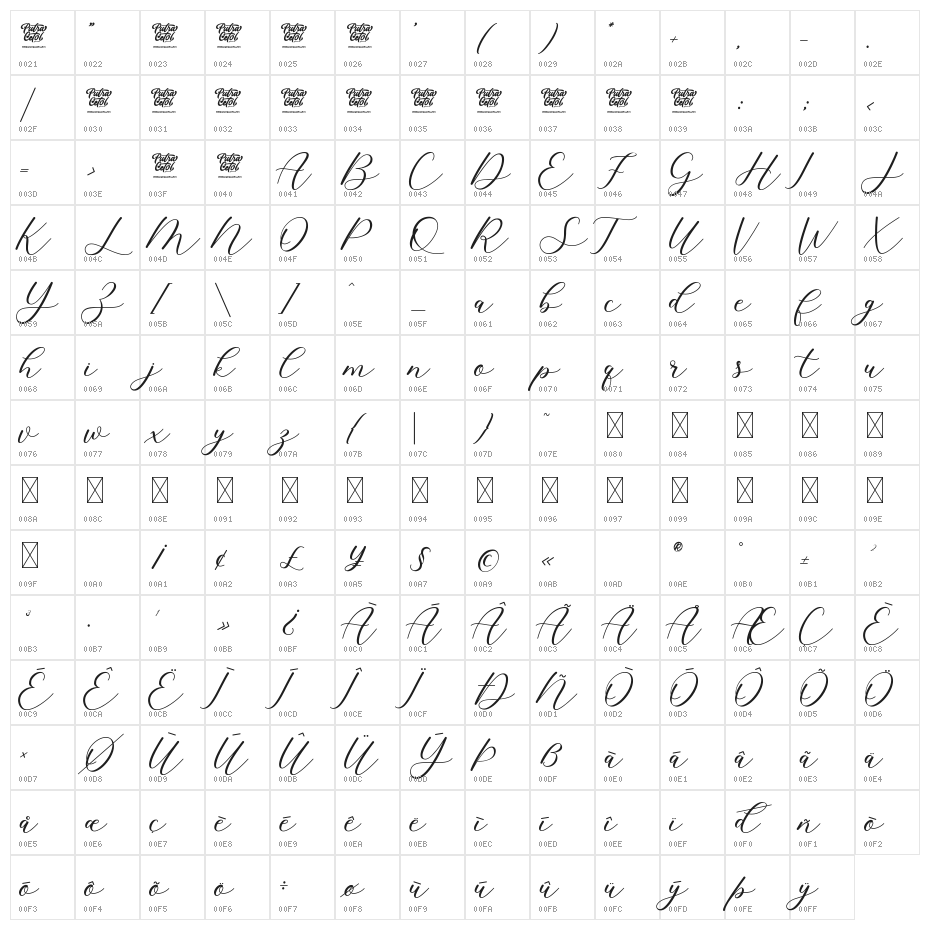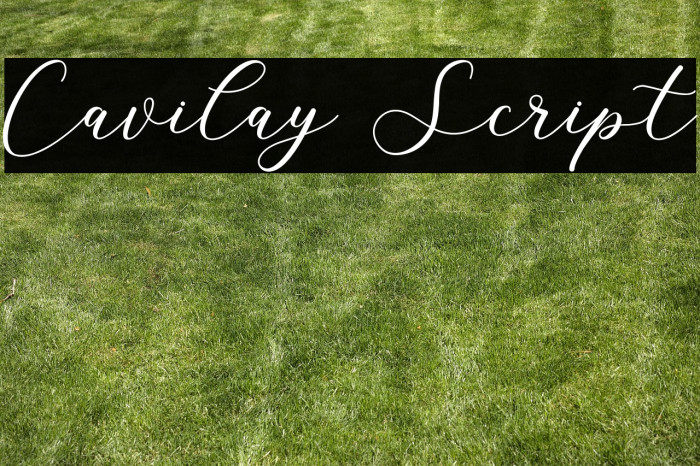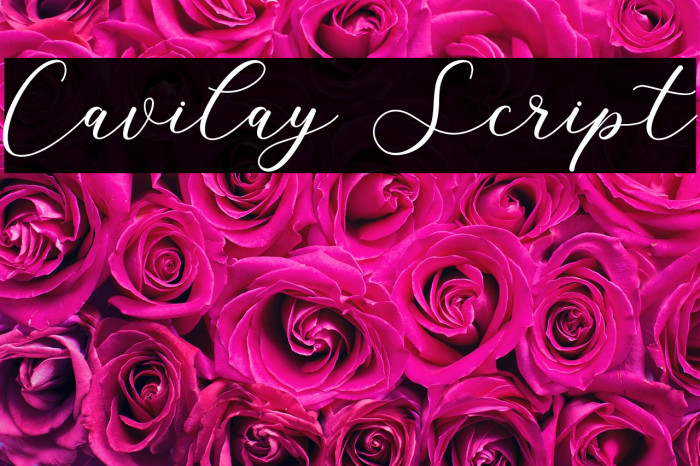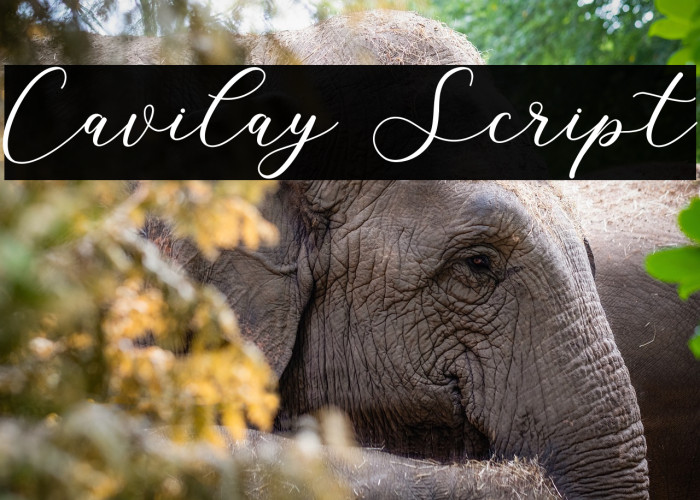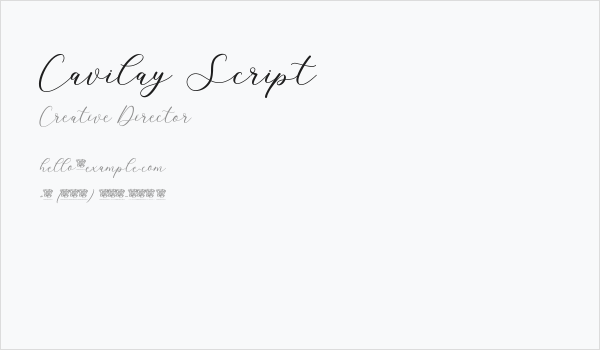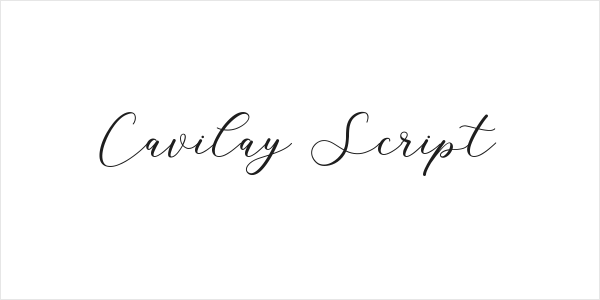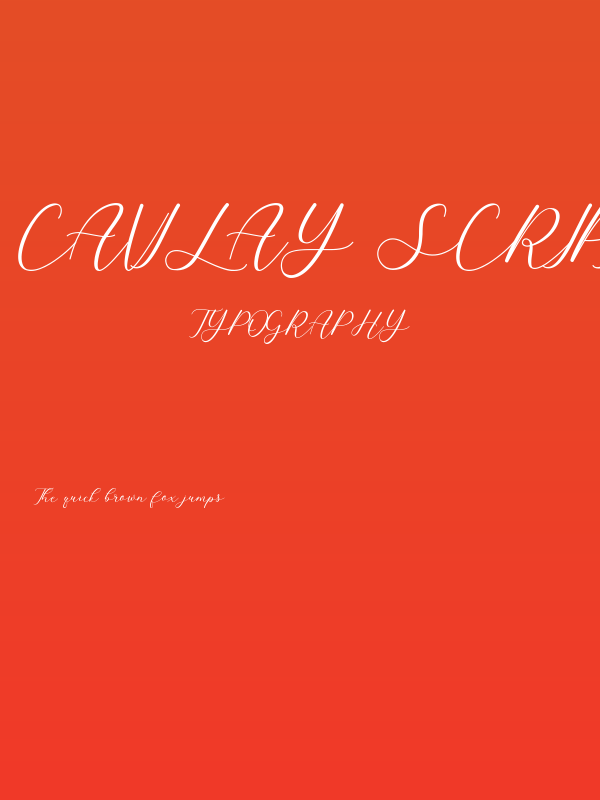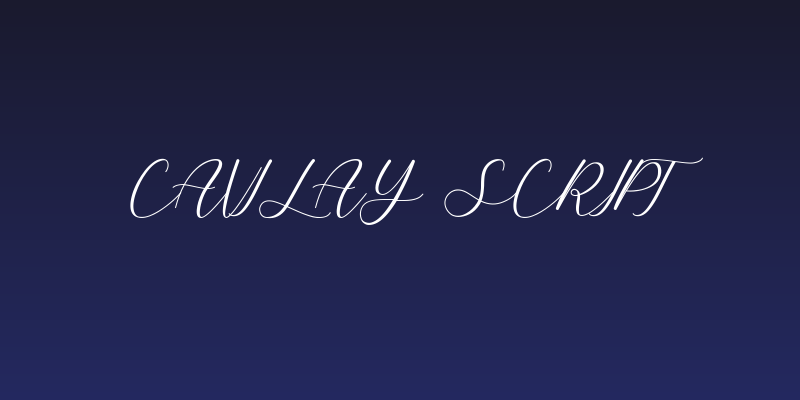
Cavilay Script Font
Cavilay Script Description
This elegant script font features fluid, cursive strokes that create a sense of movement and grace. The uppercase letters are tall and slightly slanted, with intricate loops and swashes that add a decorative touch. The lowercase letters maintain a consistent flow, with smooth connections between each character, enhancing readability while retaining an artistic flair. The font's design is both sophisticated and approachable, making it suitable for a variety of creative applications. The numerals and special characters are crafted with the same attention to detail, ensuring a cohesive look across all text elements.
| Overall Style | Elegant and Decorative |
| Use Case | Logos, Invitations, Decorative text |
| Proposed Projects | Ideal for wedding invitations, greeting cards, branding, and elegant packaging designs. |